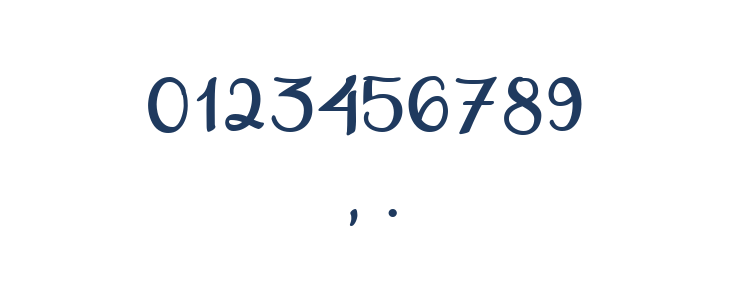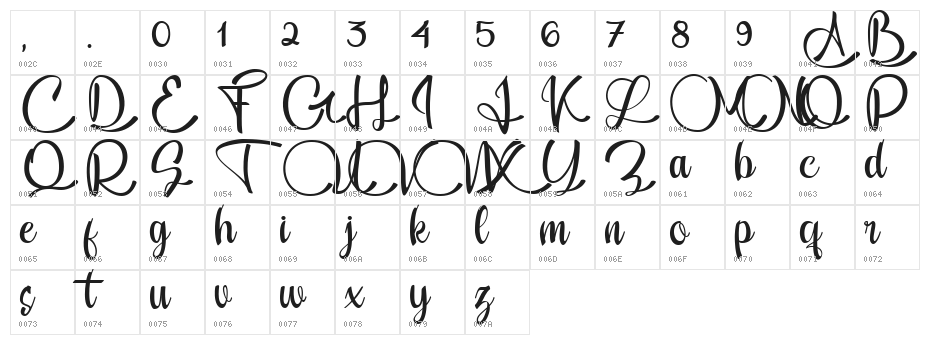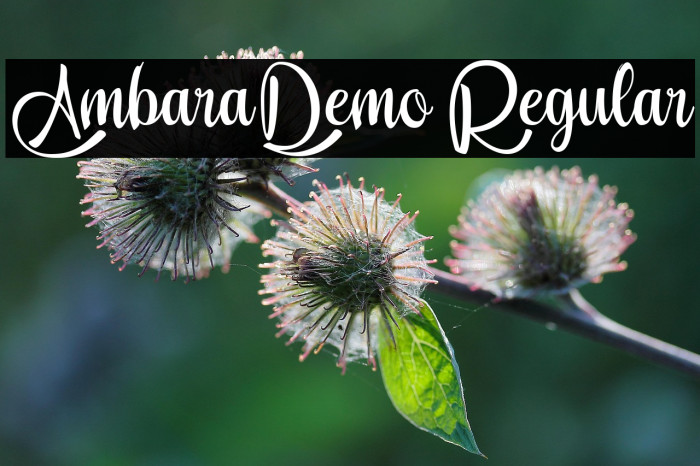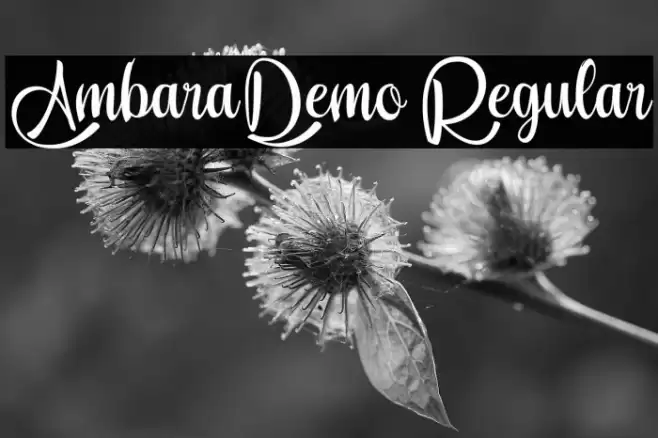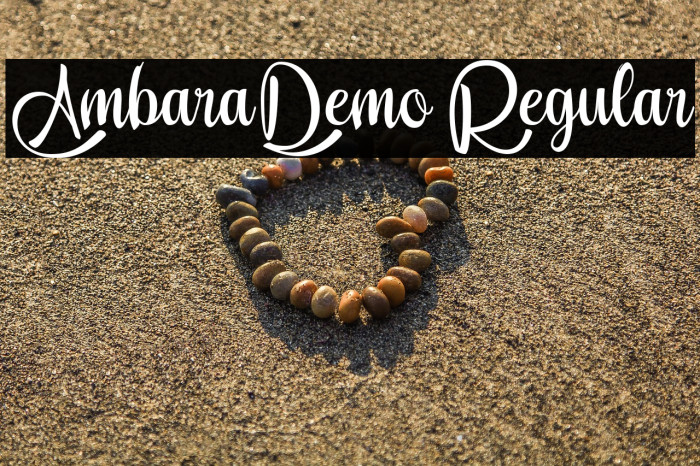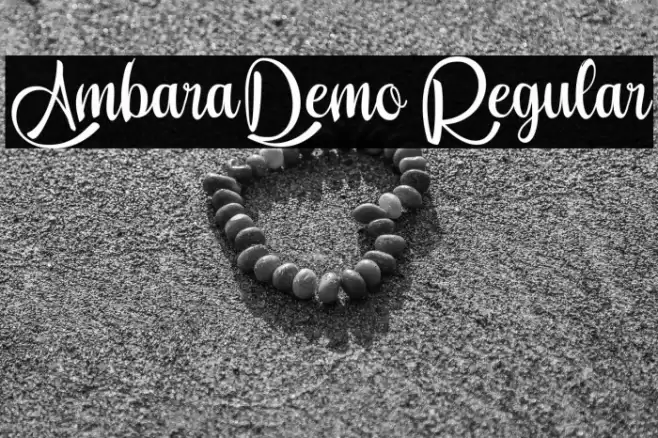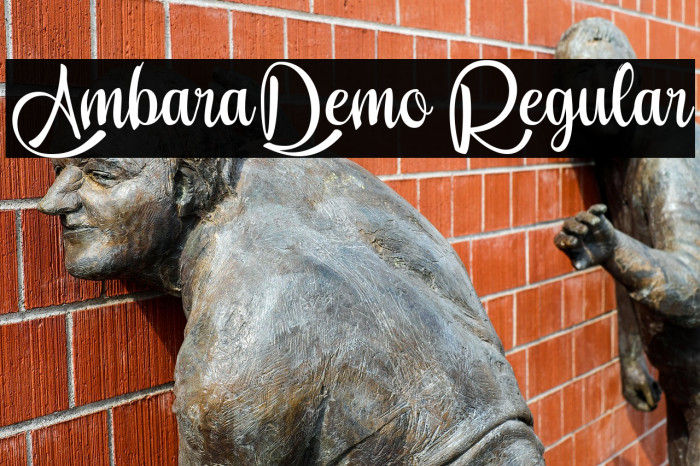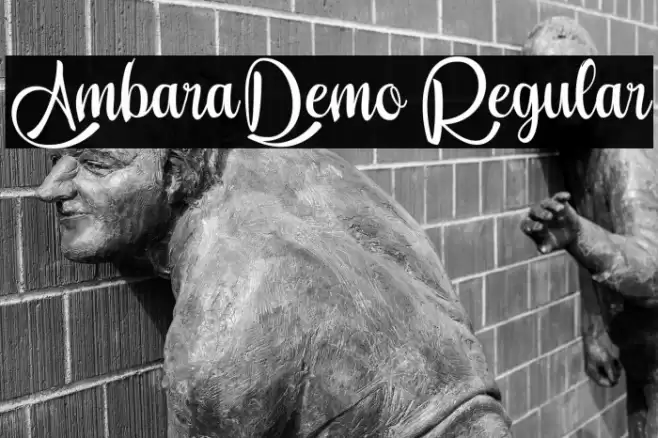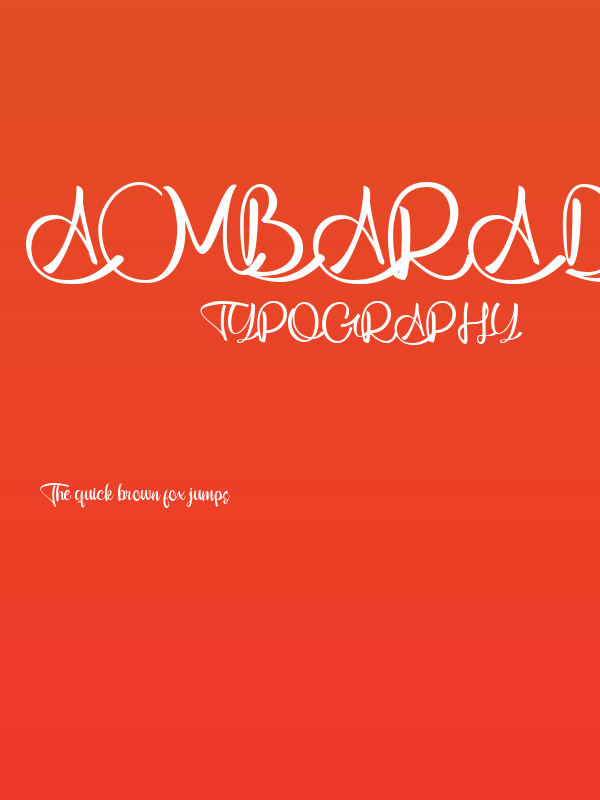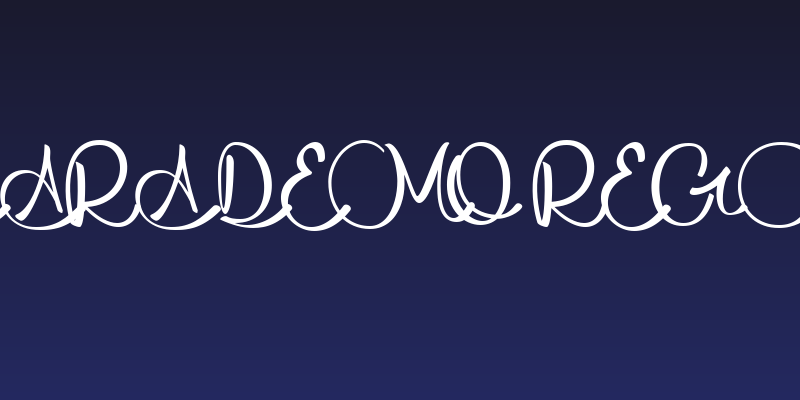
Ambara_Demo Regular Font
Ambara_Demo Regular Description
This font features a distinctive and elegant script style with a flowing, cursive appearance. The uppercase letters are intricately designed with loops and swirls, giving them a decorative flair. The lowercase letters maintain a smooth and connected form, enhancing the script's fluidity. Numbers and special characters are crafted with the same attention to detail, ensuring consistency across the entire typeface. The overall design exudes a sense of sophistication and creativity, making it suitable for projects that require a touch of elegance and artistic expression.